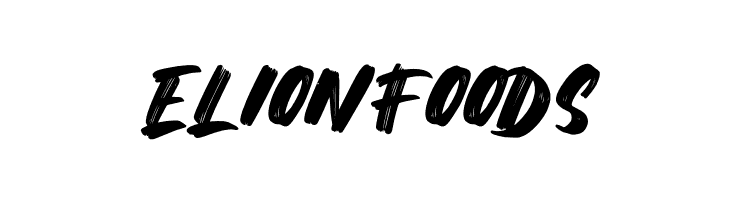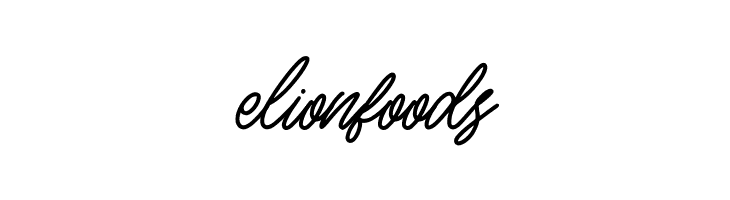
A bold, hand-drawn font with a rough, edgy style.
A flowing, cursive script with a handwritten style and moderate stroke thickness.
A fluid and elegant script font with cursive letterforms.
Hand-drawn, illustrative font made from meeting scene sketches.
A distressed, handwritten font with a rugged yet elegant style.
A bold, expressive script font with a flowing, handwritten style.
A bold, high-contrast font with elegant curves and a modern-classic blend.
A bold, brush-style font with dynamic, expressive strokes.
A dynamic brush script font with expressive, fluid strokes.